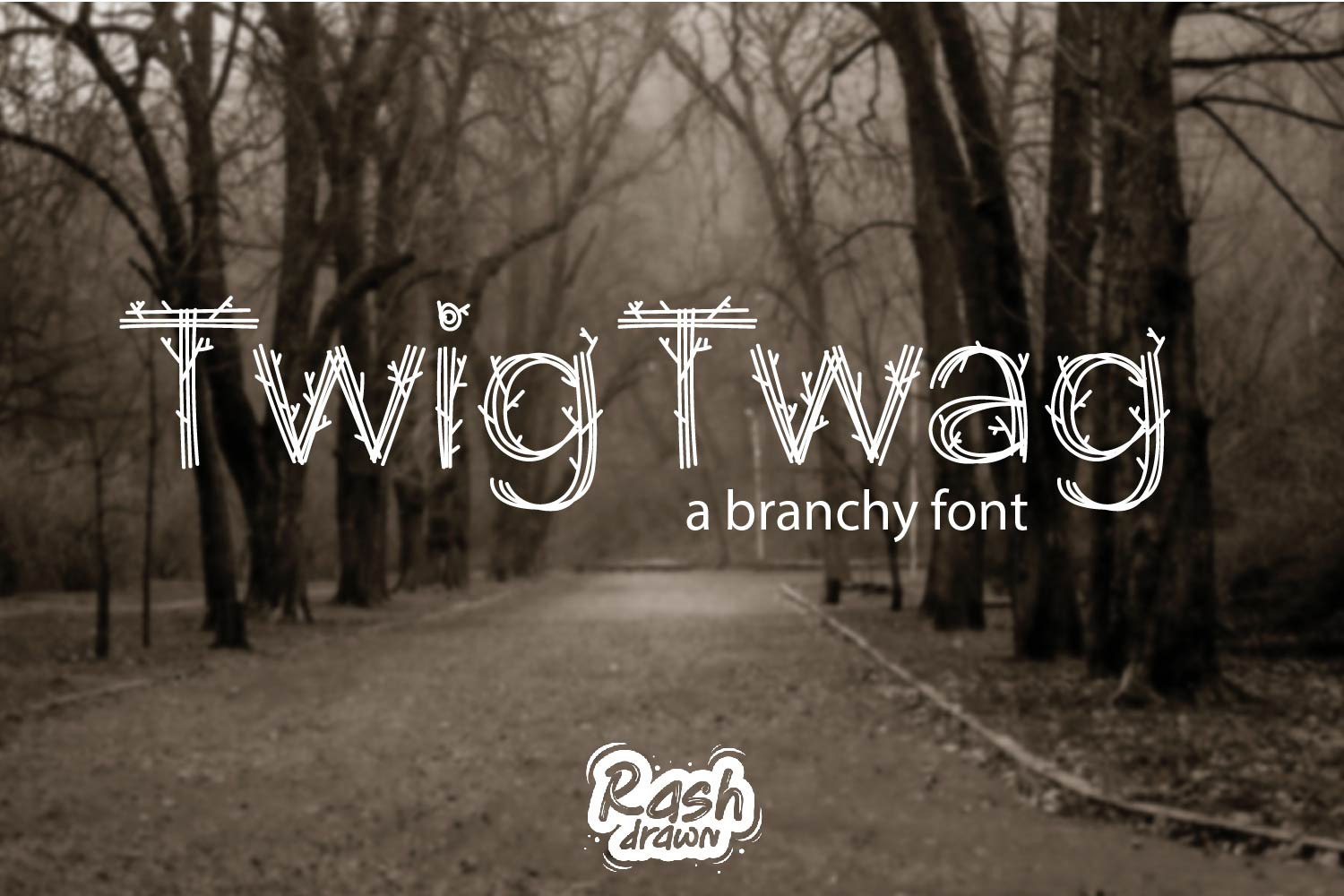
Twig Twag a branchy font
Twig Twag is a fun and friendly decorative font. Use it to turn any design idea into a true standout. Get inspired by its unique charm and create lovely designs.